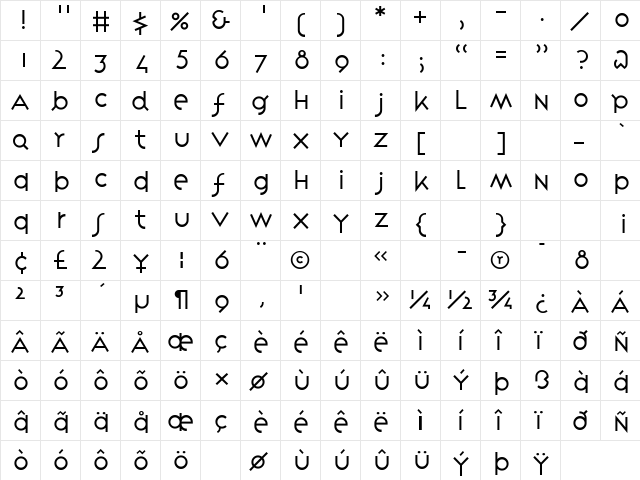
VariexLight Regular Font Preview
VariexLight Regular
VariexLight Regular Font Details
Design Context for VariexLight Typeface
VariexLight offers clean, dependable letterforms without strong stylistic allegiance, making it a practical choice for designers who need flexibility. The delicate stroke weight brings airiness and refinement to layouts.